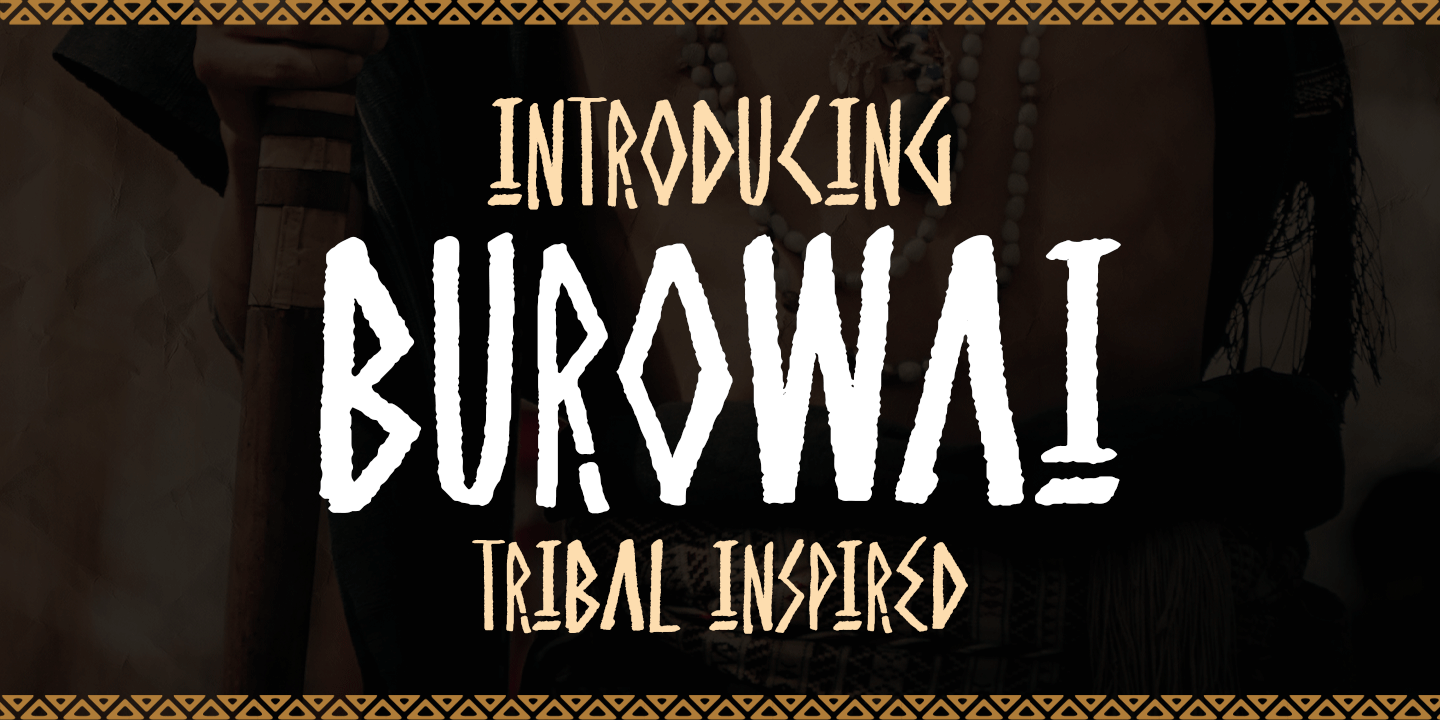
The Burowai Font is a charming and often whimsical display typeface, frequently characterized by its handcrafted aesthetic, playful irregularities, and a warm, inviting feel, reminiscent of organic brush strokes or natural textures. Imagine its unique characters gracing the labels of artisanal products, adding an authentic, homespun touch to boutique cafe branding, or creating inviting signage for local craft markets and community events. Its slightly imperfect lines and friendly appearance also make it an excellent choice for unique greeting cards, delightful social media graphics, lifestyle blogs, and any design where a genuine, rustic, and approachable feel is desired. Whether you're aiming for a warm, natural look or a distinctly personal touch, Burowai Font delivers with its unmistakable character, ensuring your visuals feel both authentic and appealing.
What makes Burowai Font so exciting is its ability to infuse designs with immediate personality and a sense of genuine human connection, evoking the comfort of natural elements and skilled craftsmanship. In a digital world often dominated by sleek, mass-produced designs, this font offers a refreshing dive into a more tactile, heartfelt aesthetic. It conjures images of rustic charm, sustainable living, and a connection to the outdoors. It’s more than just a typeface; it’s a design element that can instantly set a warm, inviting, and authentic tone for a project, making content feel more relatable and trustworthy. Designers will find it an invaluable asset for creating visuals that truly resonate with an audience seeking originality and a personal touch infused with natural appeal.
The Burowai Font family is typically structured to offer a range of styles that enhance its handcrafted and expressive appeal. Beyond the primary Burowai Regular typeface (which might feature a charming, slightly imperfect hand-drawn quality), you might find companion styles such as a more impactful Burowai Bold for stronger emphasis, or perhaps Burowai Italic for a casual slant. Given its artisanal nature, the family may also include unique ligatures, alternate characters, or stylistic sets that allow for even greater customization, mimicking the beautiful irregularities and variations found in true hand-lettering or a rustic print. These diverse family members provide designers with the flexibility to establish a clear typographic hierarchy and maintain a consistent, charmingly authentic aesthetic across all elements of their project, from prominent titles to smaller, illustrative texts.